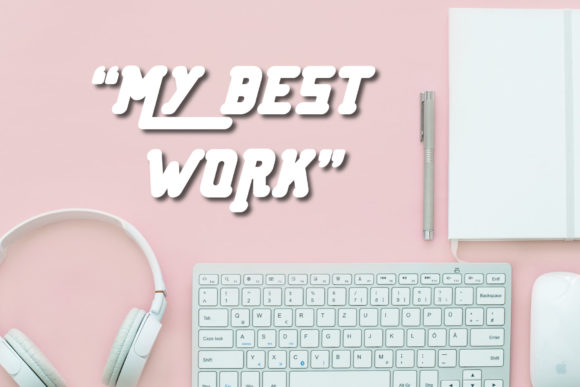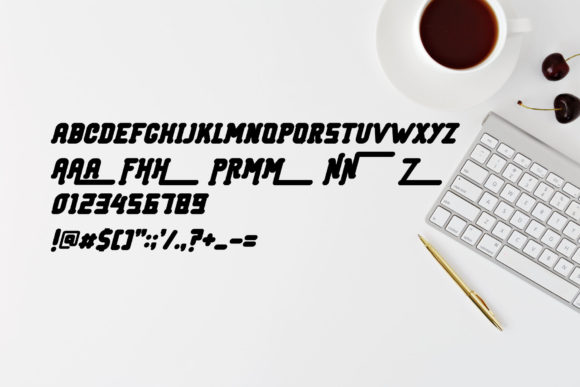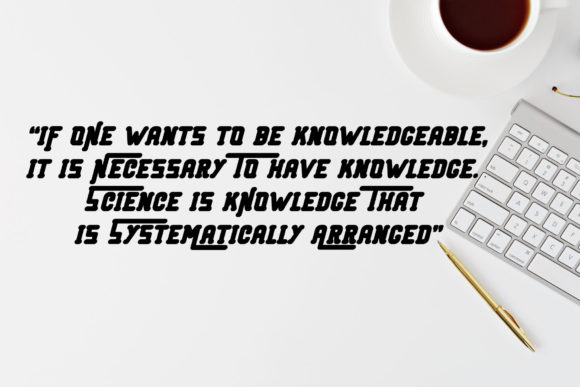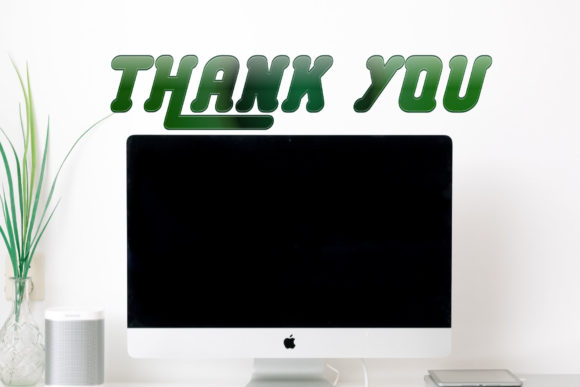
Introducing Desktop Font: The Ultimate Techno Display Font
Are you tired of using the same old fonts for your web designs, business cards, and other creative projects? Look no further than Desktop Font, a cool and techno-looking display font that’s sure to give your work a unique touch. In this article, we’ll take a closer look at Desktop Font, its features, and how you can use it to elevate your designs.
What is Desktop Font?
Desktop Font is a modern display font designed to make a statement. Its sleek and techno-inspired design makes it perfect for a wide range of applications, from web designs and business cards to posters, flyers, and more. With its unique and futuristic look, Desktop Font is sure to grab attention and set your work apart from the crowd.
Key Features of Desktop Font
- Unique and Modern Design: Desktop Font features a sleek and modern design that’s perfect for tech-savvy designers and crafters.
- Highly Versatile: This font can be used for a wide range of applications, from web designs and business cards to posters, flyers, and more.
- Easy to Read: Despite its futuristic design, Desktop Font is easy to read, making it perfect for headlines, titles, and other display text.
- Customizable: With Desktop Font, you can easily customize the font to fit your needs, from adjusting the size and color to adding effects and textures.
Tips for Using Desktop Font
- Use it for Headlines and Titles: Desktop Font is perfect for headlines and titles, where you want to grab attention and make a statement.
- Experiment with Colors and Effects: Don’t be afraid to experiment with different colors and effects to give your text a unique look.
- Pair it with Other Fonts: Desktop Font pairs well with other fonts, so feel free to get creative and experiment with different font combinations.
Benefits of Using Desktop Font
So why choose Desktop Font for your next design project? Here are just a few benefits of using this amazing font:
- Stand Out from the Crowd: With Desktop Font, you can create designs that stand out from the crowd and grab attention.
- Save Time: Desktop Font is easy to use and customize, saving you time and effort on your design projects.
- Professional-Looking Designs: With Desktop Font, you can create professional-looking designs that are sure to impress.
In conclusion, Desktop Font is a cool and techno-looking display font that’s perfect for designers and crafters who want to add a unique touch to their work. With its modern design, versatility, and ease of use, Desktop Font is sure to become a go-to font for anyone looking to create stunning designs. So why wait? Download Desktop Font today and start creating amazing designs that stand out from the crowd!